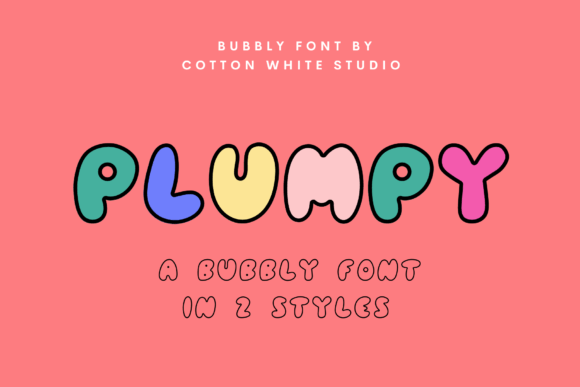
Introducing Plumpy Font, the ultimate choice for all your creative ventures! This cute and bubbly display font is specifically designed to add a touch of magic to your projects. Whether you're designing mugs, t-shirts, wall prints, labels, stickers, or even creating captivating blog content, Plumpy Font will take your creations to the next level.
Created by the renowned Lemon Downloads, Plumpy Font stands out from the crowd with its unique and captivating style. Its playful curves and charming aesthetics make it the perfect choice for any occasion. Let your imagination run wild as you explore the endless possibilities this font offers.
Are you in search of the perfect font for your quotes, greeting cards, or tea towels? Look no further! Plumpy Font will infuse your words with emotion and bring them to life. Its whimsical nature adds a touch of enchantment to every letter, making your messages truly unforgettable.
As an apparel designer, you understand the importance of a font that can make a statement. Plumpy Font is your secret weapon, providing a fun and eye-catching element to your clothing line. From trendy t-shirts to cozy pillows, this font will turn heads and leave a lasting impression on your customers.
But Plumpy Font doesn't stop there – it's also perfect for creating captivating visuals for children. Picture books, toys, and posters will come alive with the help of this playful font. Its vibrant and cheerful design will capture the hearts of both kids and adults alike.
With Plumpy Font, the possibilities are limitless. Let your creativity soar as you explore its potential in various projects. Its versatility ensures that it fits effortlessly into any design style, whether you're aiming for a modern, vintage, or whimsical look.